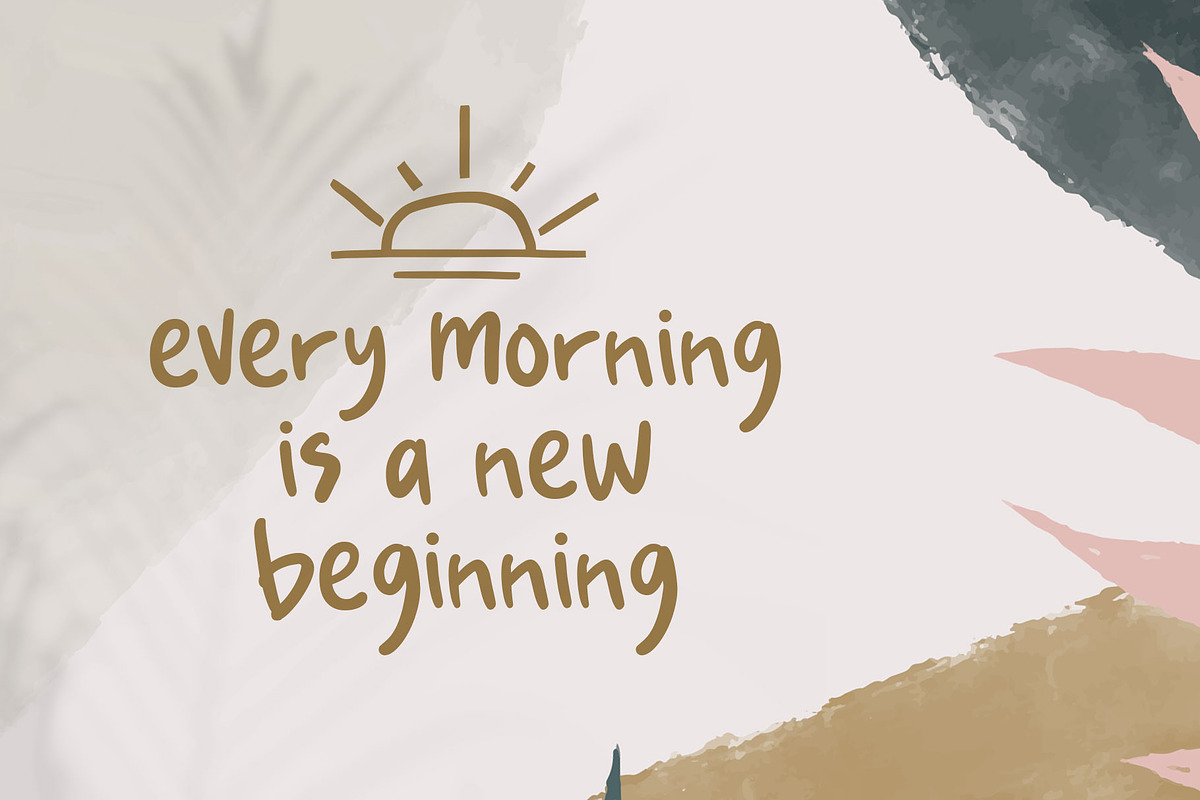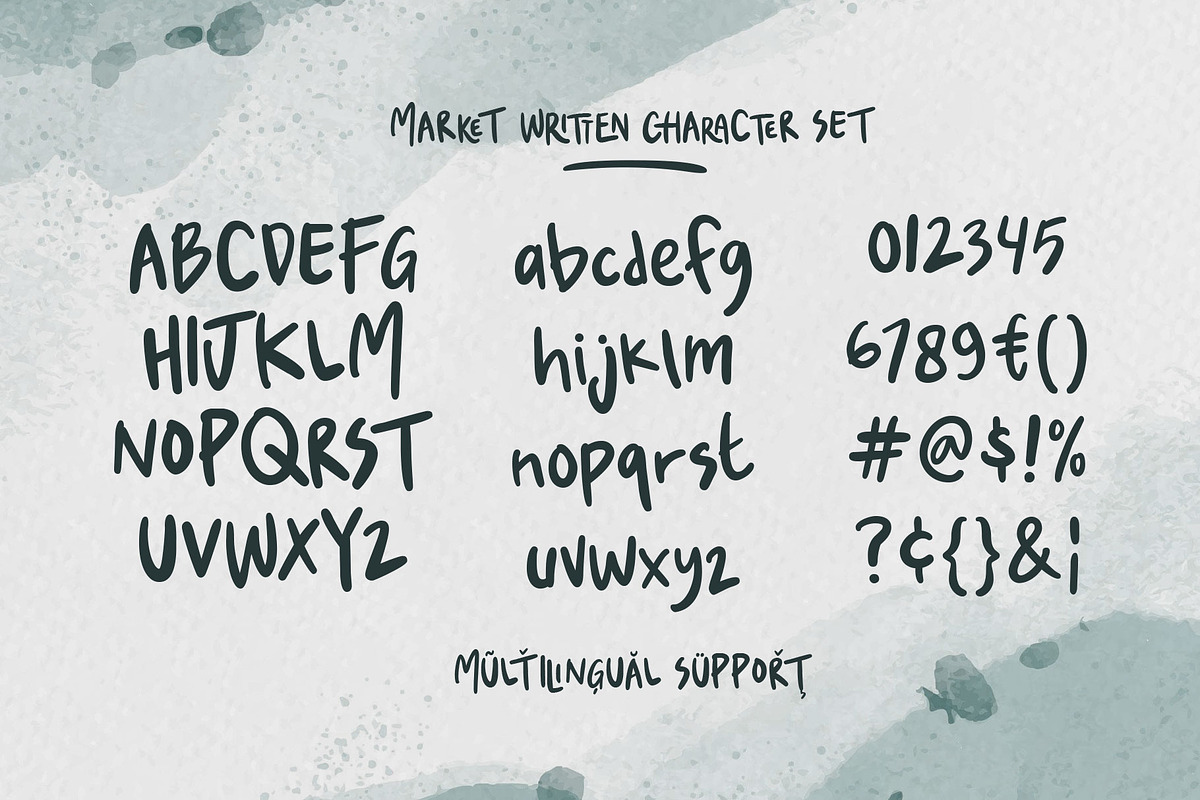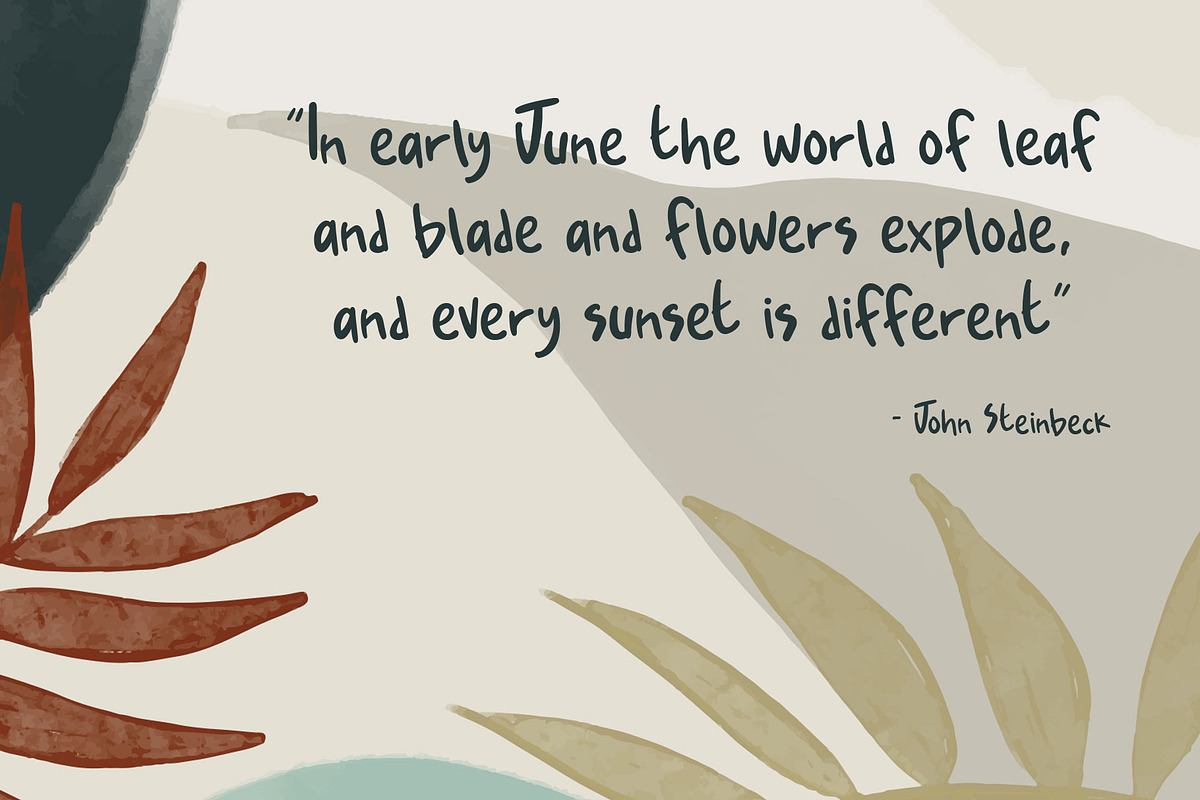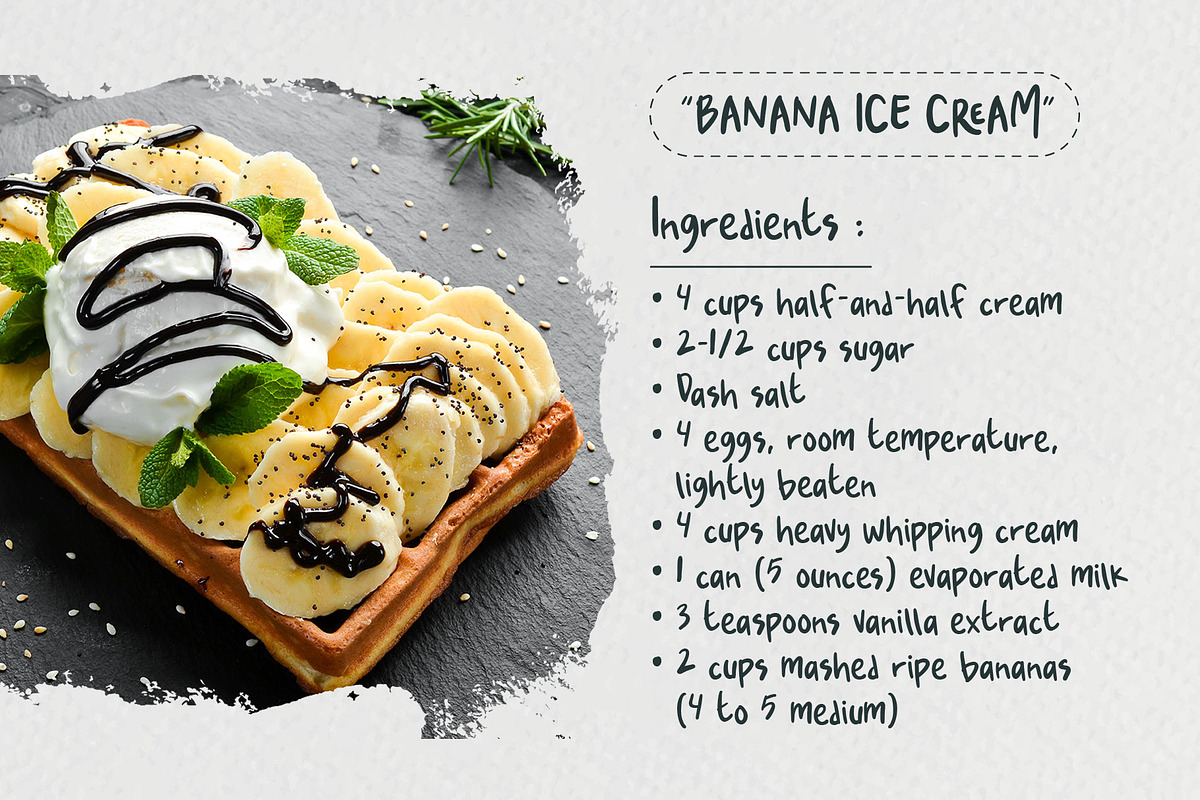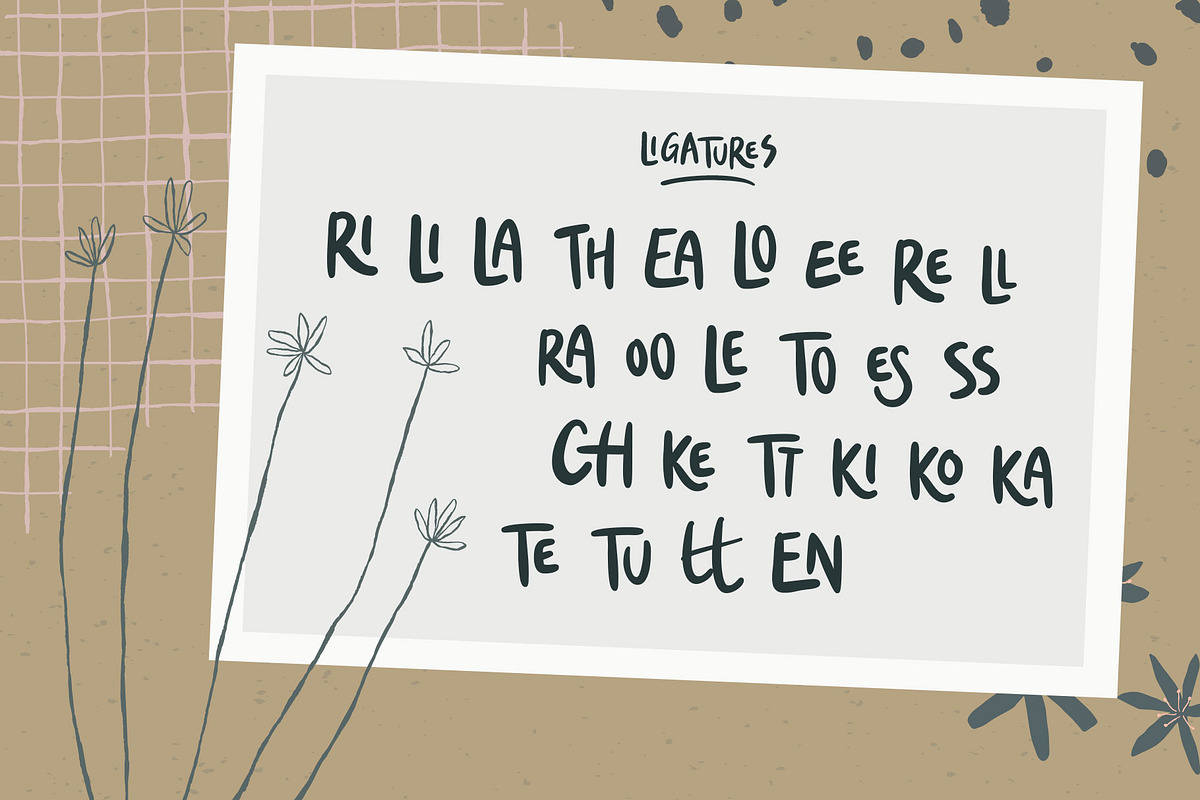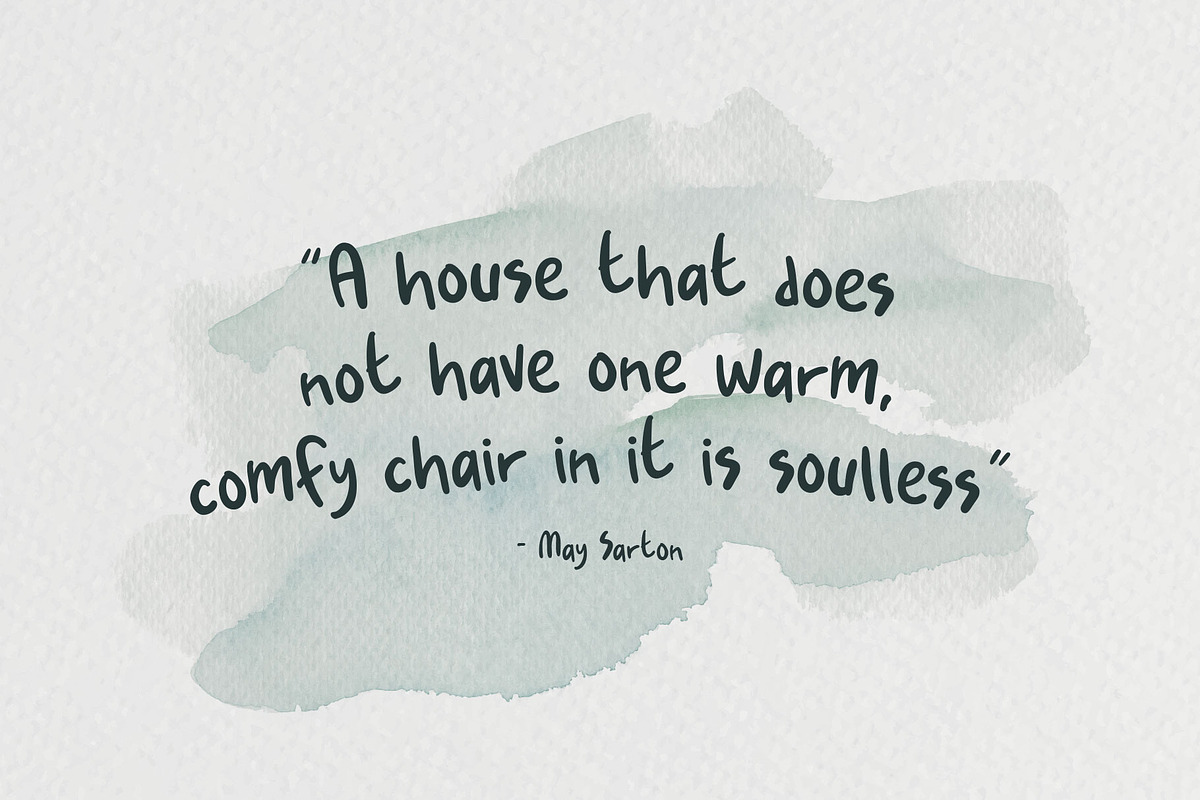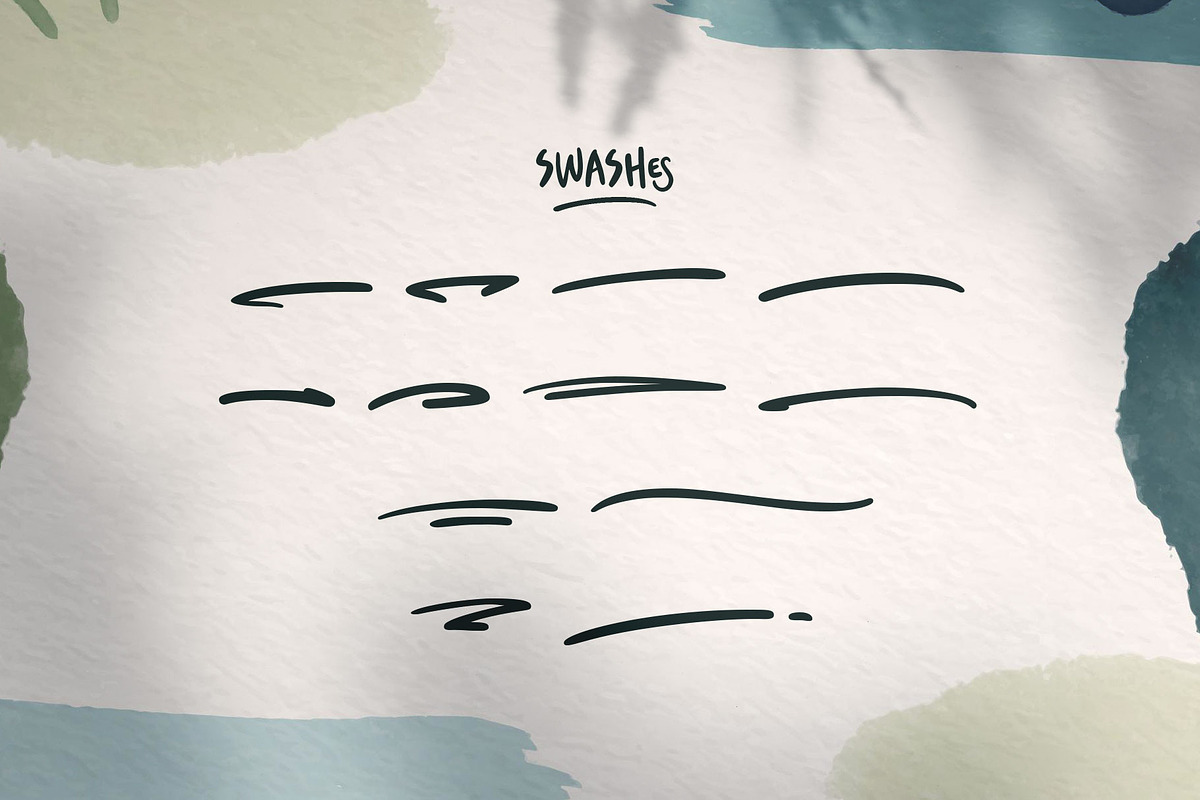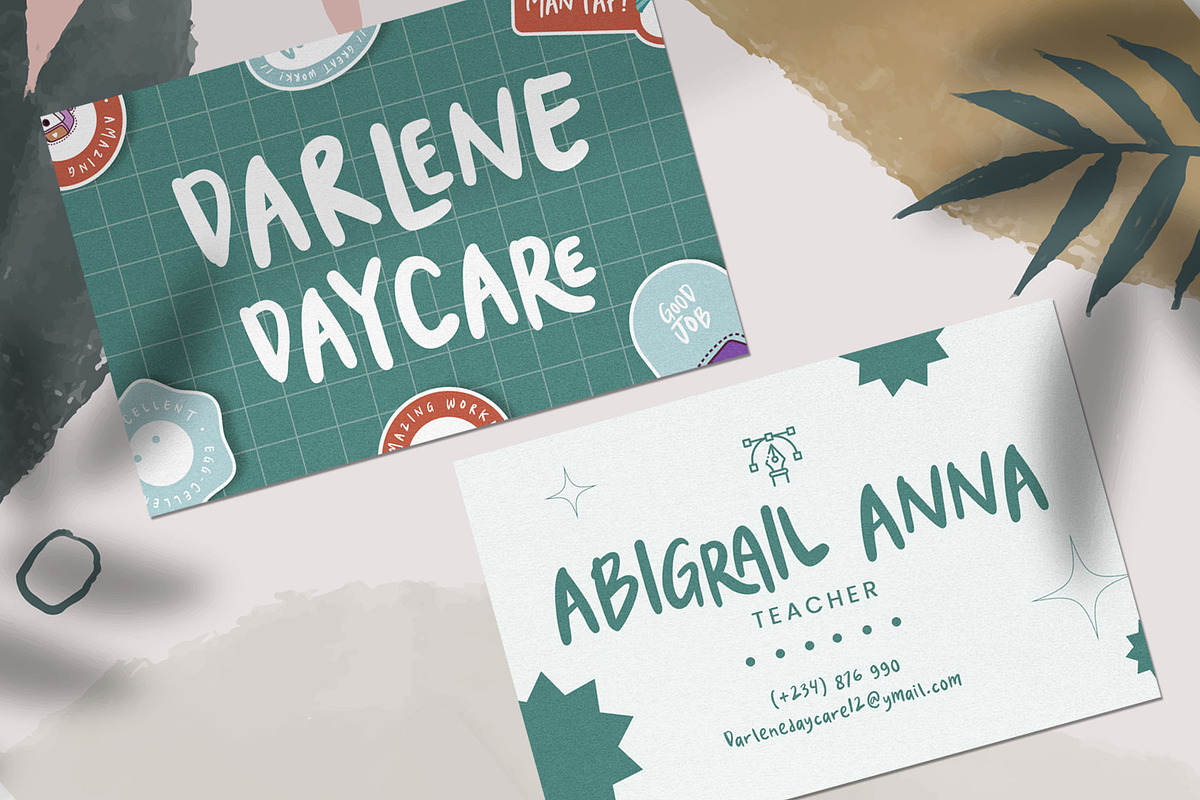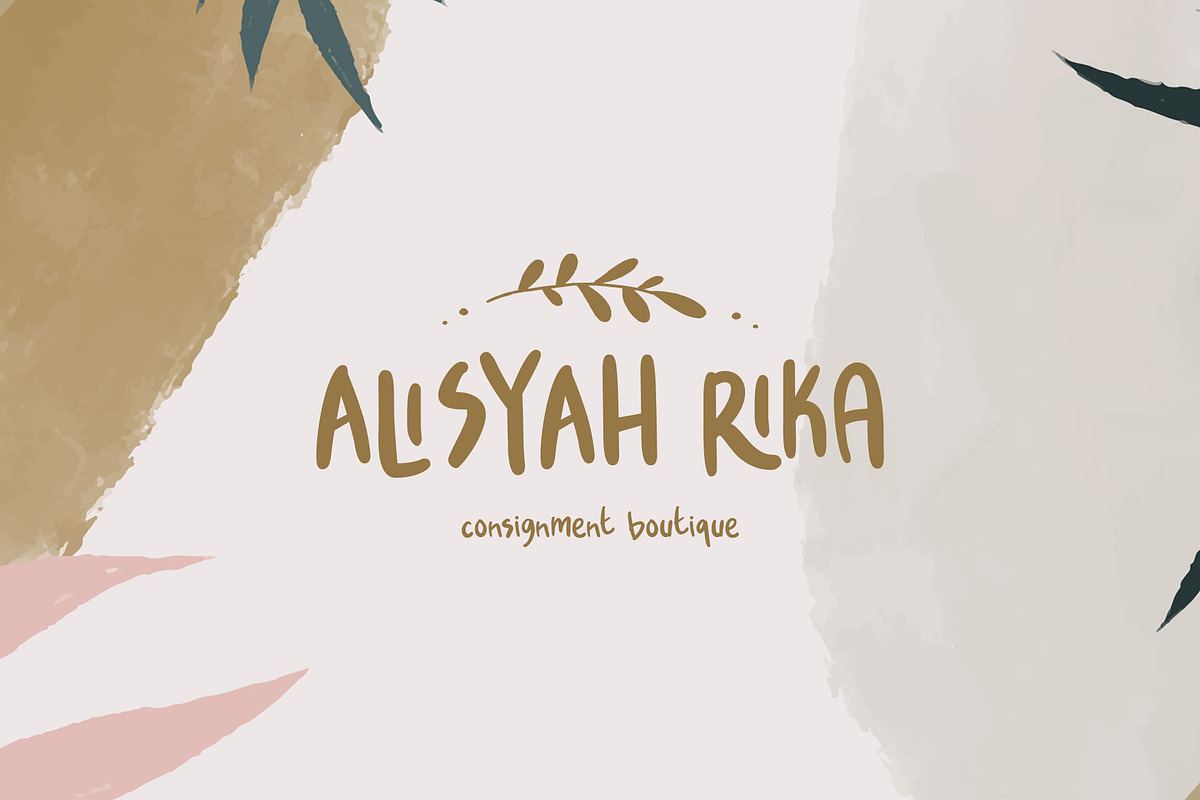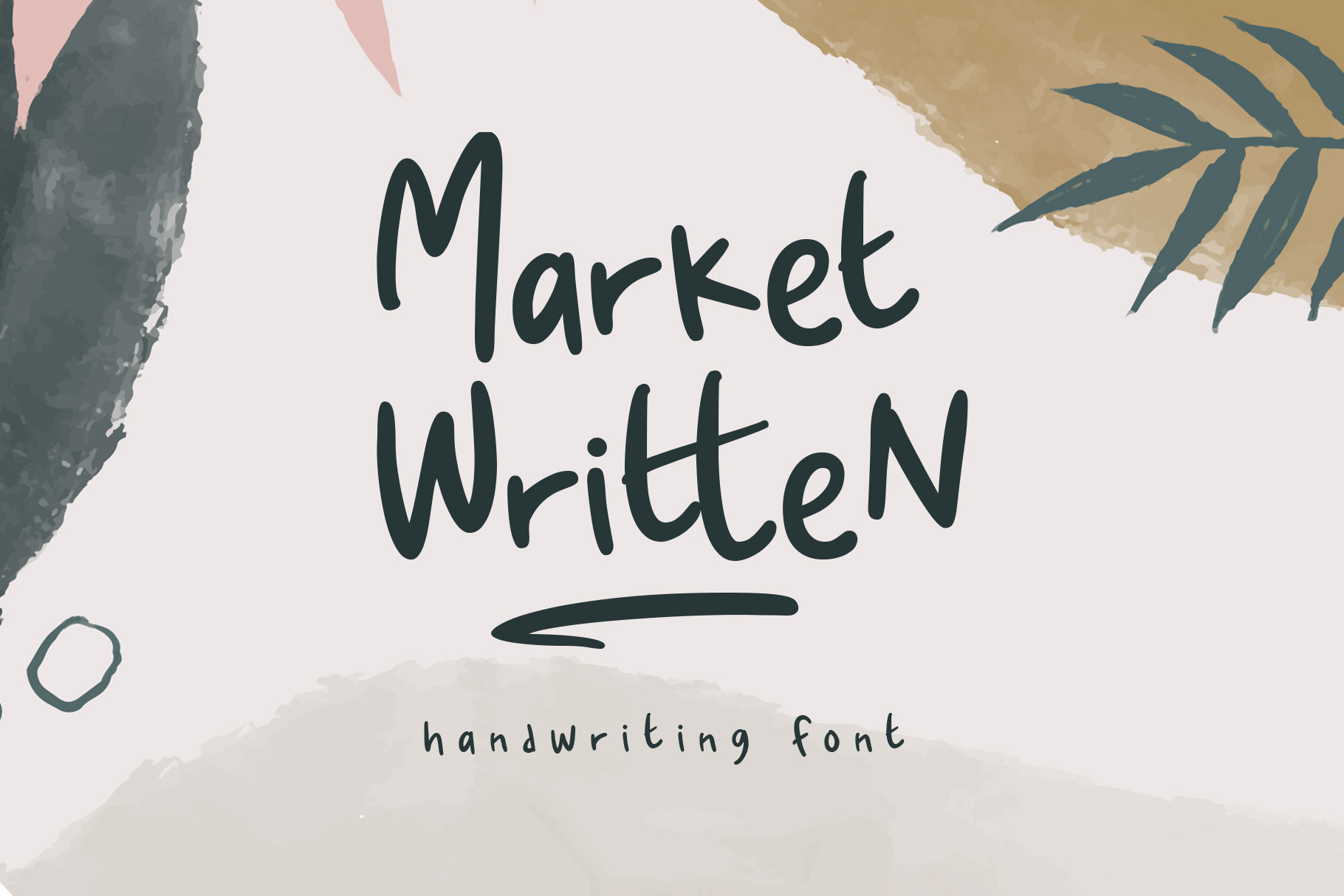
Market Written - Handwriting Font
Market Written is a handwriting font, created by the natural handwriting and casual-minimalist design. Crafted with the natural looks of the letterform and dynamic strokes, this font has a bouncy feel that makes it looks more playfully!
Market Written is perfect for something with simple words, like menus, cards, quotes, labels, chats, short body text, books, and more. Equipped with stylistic alternates and ligatures. Write your words with Market Written!